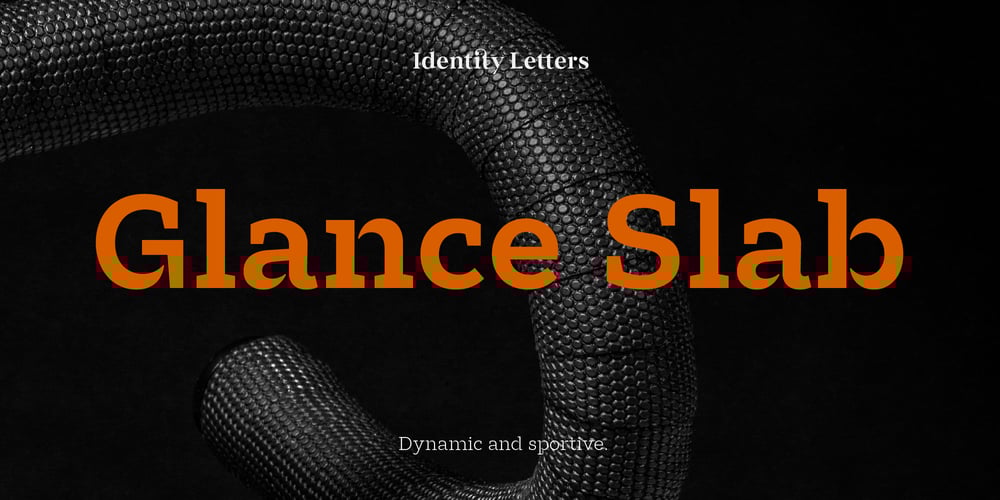
Glance Slab
Glance Slab font
Glance Slab Font Family was designed by Moritz Kleinsorge and published by Identity Letters. Glance Slab contains 16 styles and family package options. Glance Slab is an experimental design at the intersection of connection and detachment: it has the elegance of an ice skater and the determination of a quarterback. Non-joining elements create a stencil-like impression. In large sizes, the gaps provide a “sparkling” effect. When set smaller, they act like ink traps—for surprisingly legible body copy. The all-new 2024 version consists of 8 weights + italics and 730 glyphs, with Latin Plus language support, circled numbers, arrows, an “Extreme Stencil” stylistic set, and other features. Glance Slab is ideal for branding or any large-scale application. For extra versatility, this version has been redrawn to perfectly harmonize with Glance Sans.